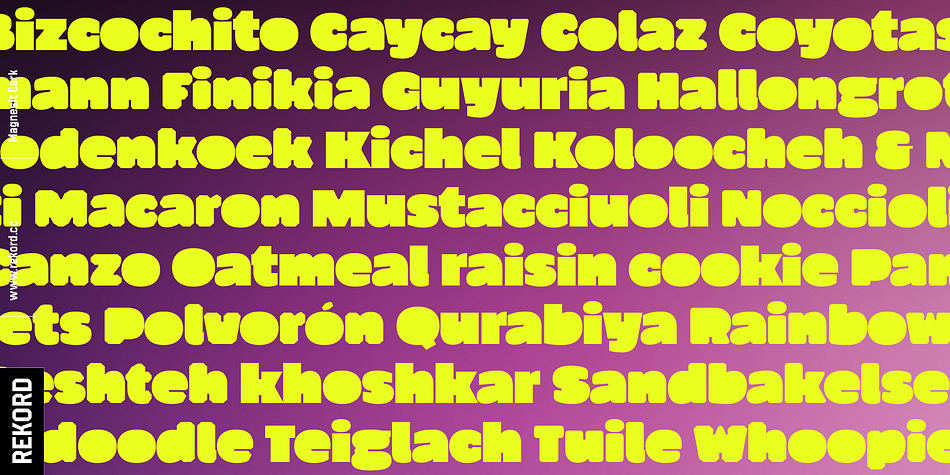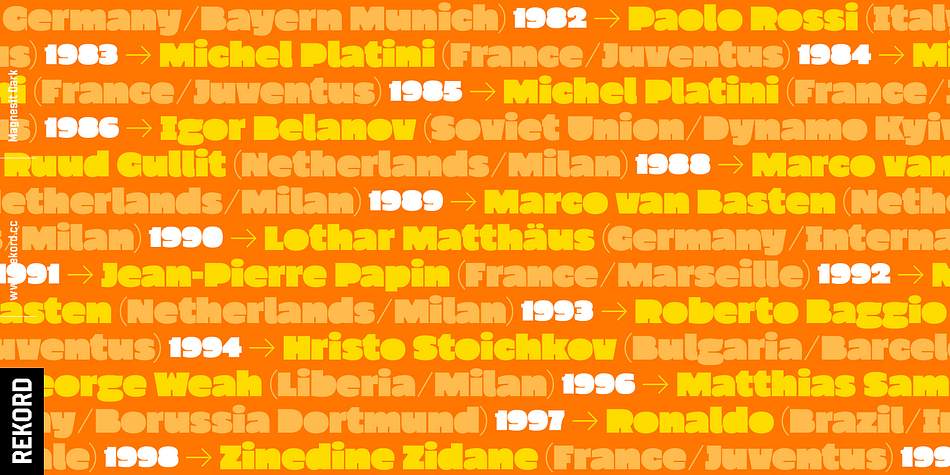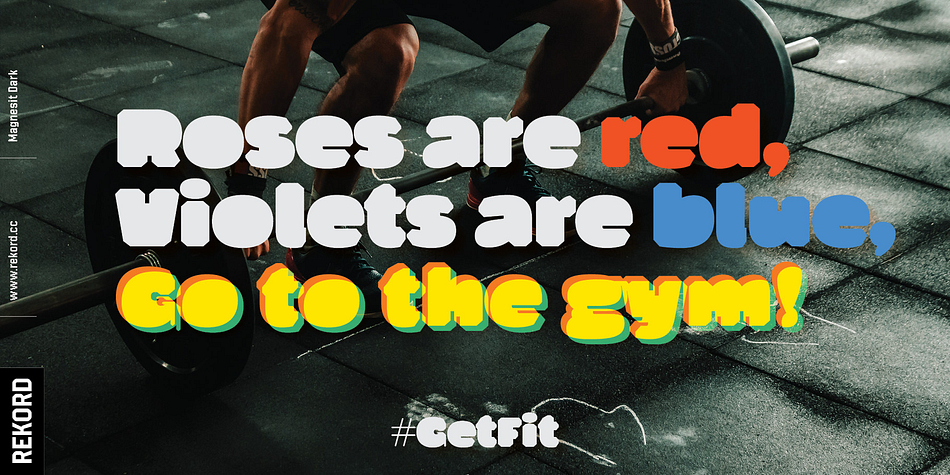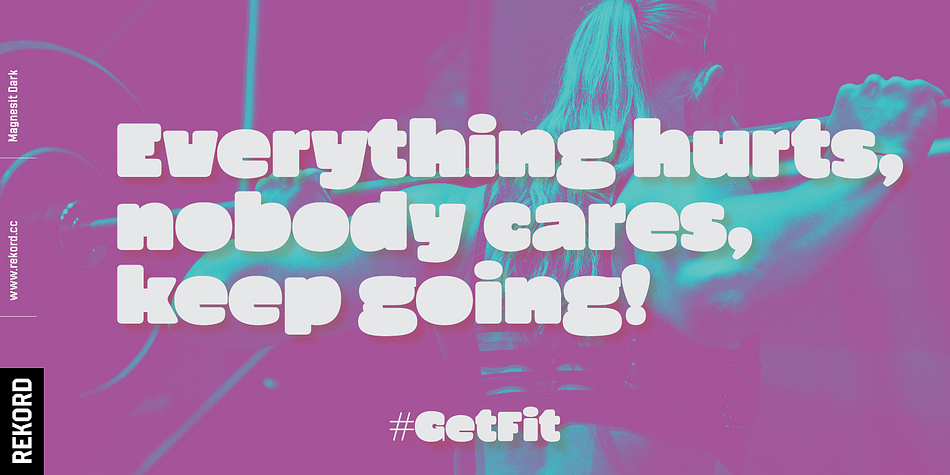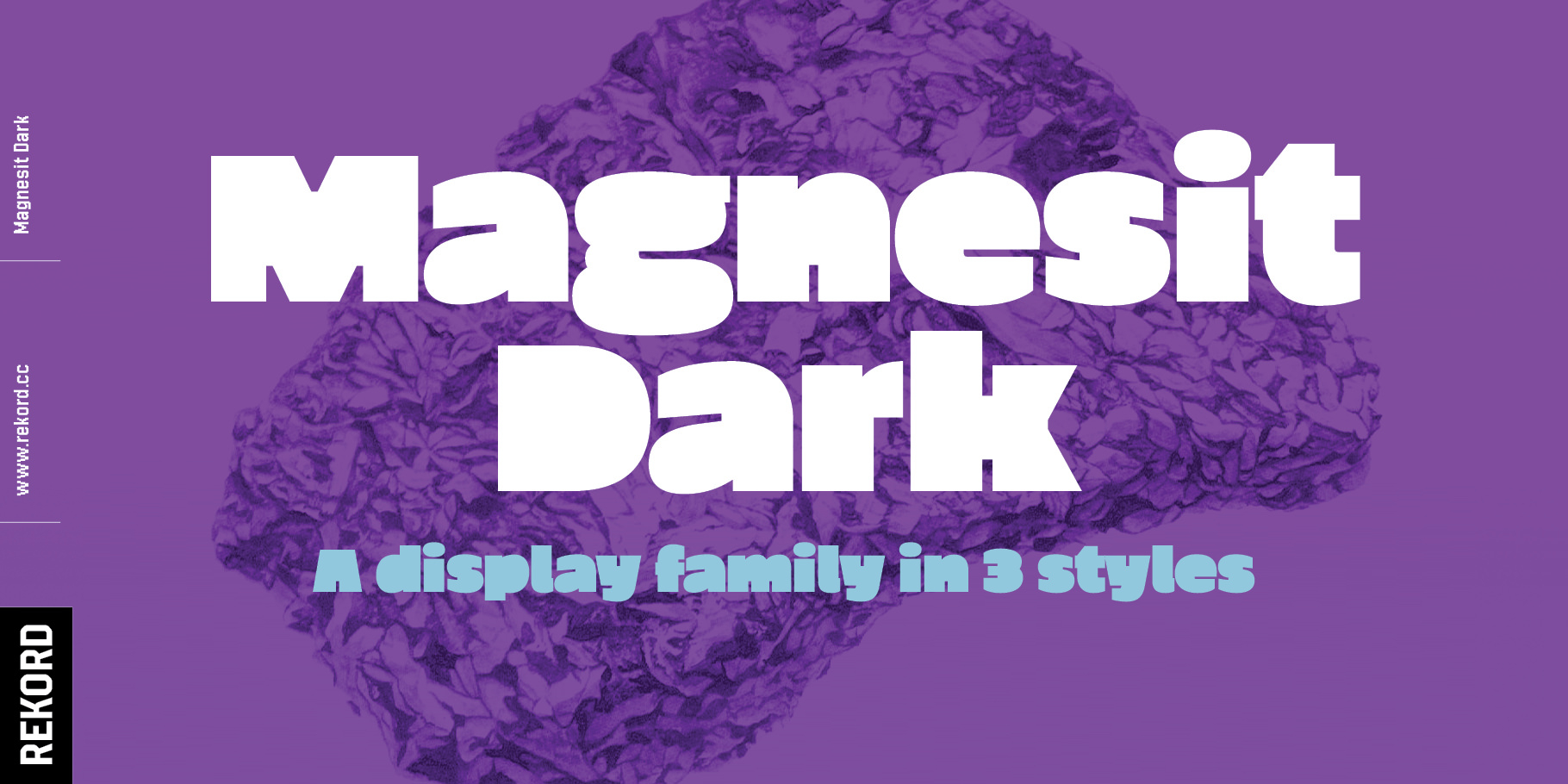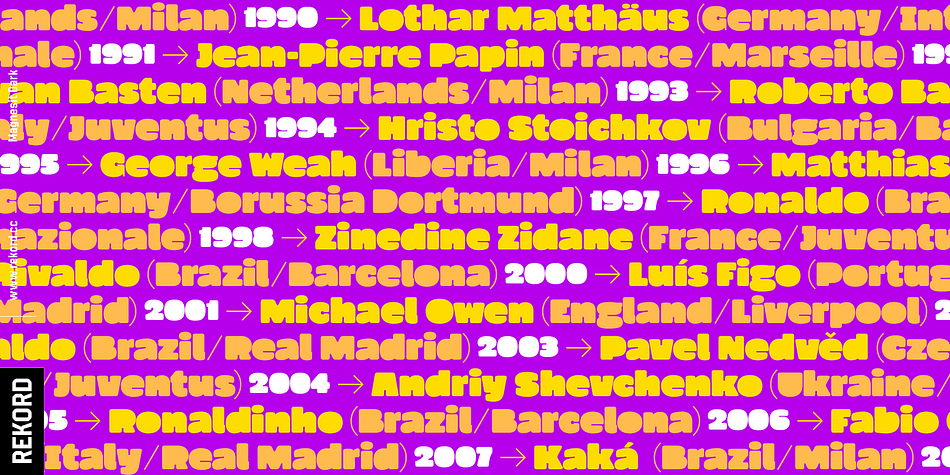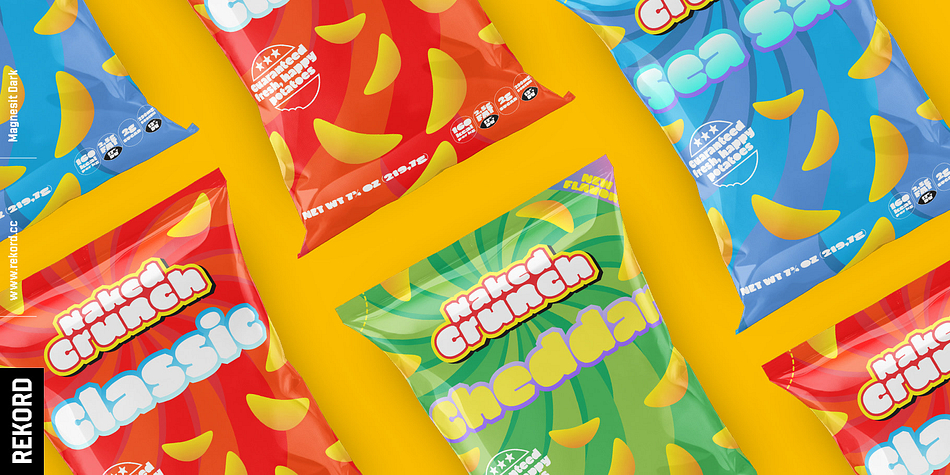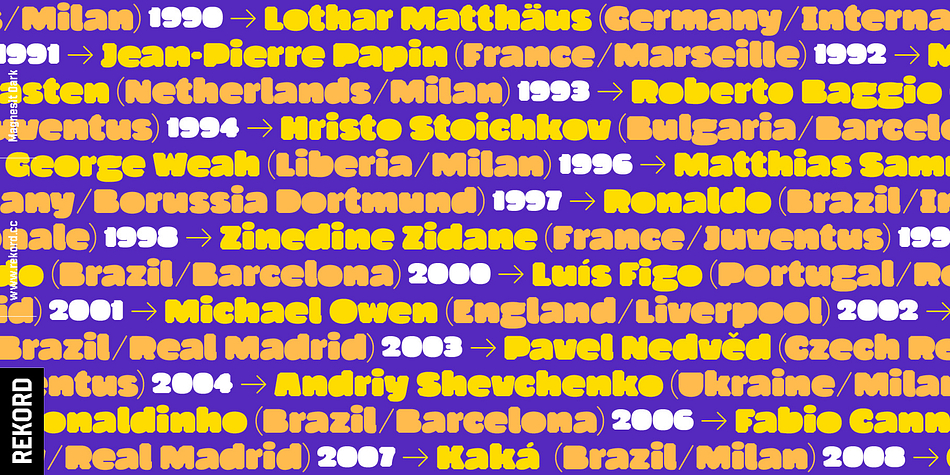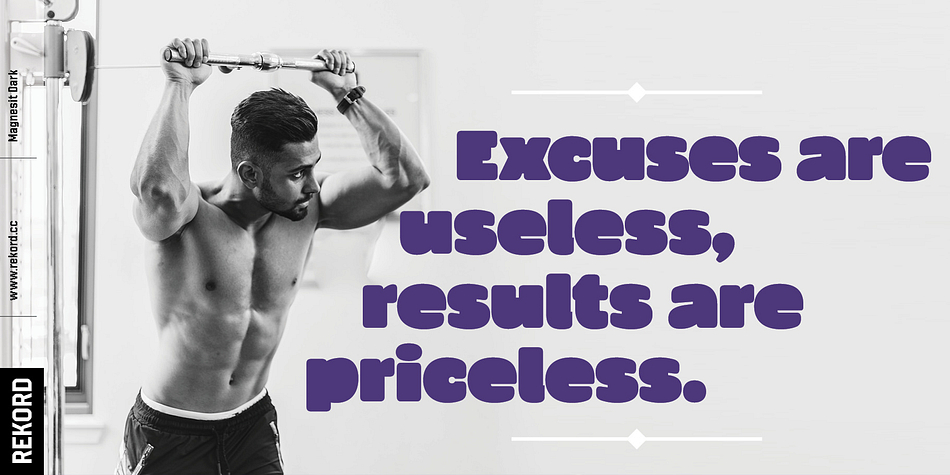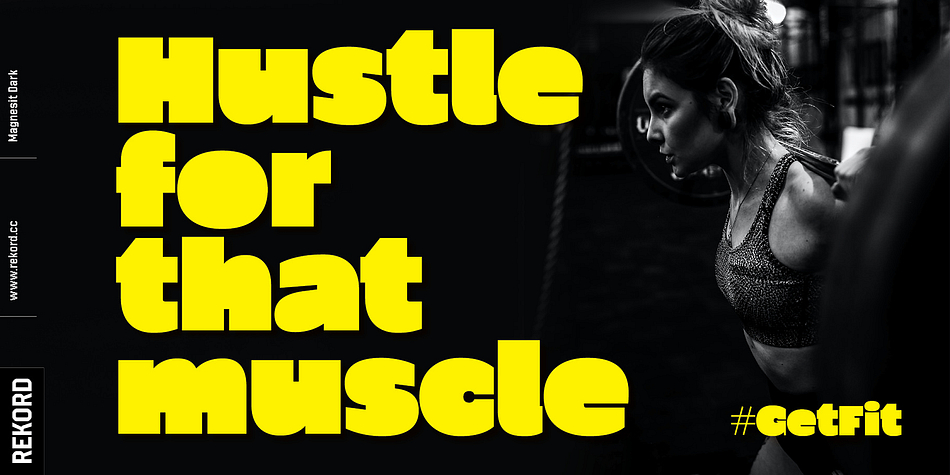
Magnesit Dark is a display sans font family. This typeface has three styles and was published by Rekord.
Sporty and brawly, Magnesit Dark creates impact everywhere it lands. Impressive headlines are its specialty, but it feels right at home used in packaging, branding and poster design. With a very tall x-height, wide language support and minimalistic yet playful appearance, it can take on any serious typographic job. Three distinct styles expand the possibilites even further: the straight to the point Regular, the friendly Soft and the determined Hard styles share metrics across related Magnesit and Magnesit Stencil families, so you can mix and match to achieve exactly the effect you need. Magnesit Dark works great with illustrations, the generous shapes can be easily filled with strong imagery to great effect.
Based on the best-selling Grim, Magnesit Dark is a vast improvement of the concept with long awaited addition of lowercase, reworked proportions, spacing and kerning, expanded language support and useful icons to satisfy even the most demanding typographers’ needs.